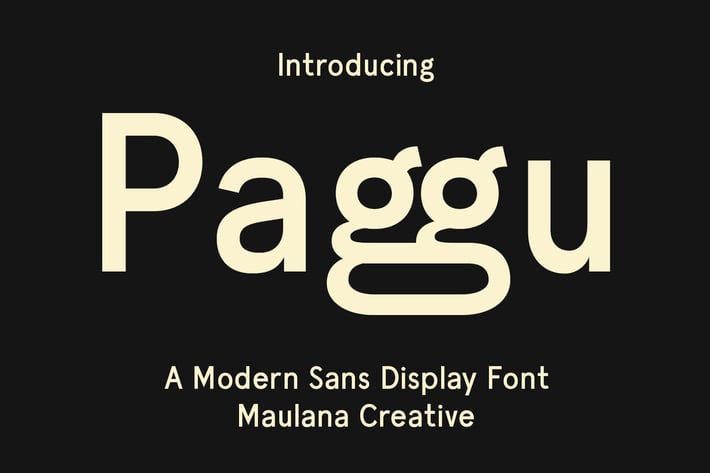
Paggu Sans Display Font
Paggu is a Quirky modern fun sans serif font. With medium stroke, fun character with a bit of ligatures and alternates. To give you an extra creative work. Paggu font support multilingual more than 100+ language. This font is good for logo design, Social media, Movie Titles, Books Titles, a short text even a long text letter and good for your secondary text font with script or serif. Make a stunning work with Paggu font.